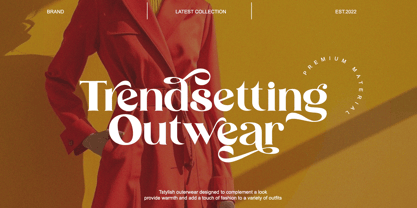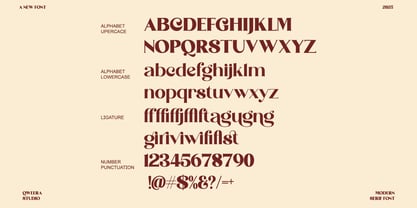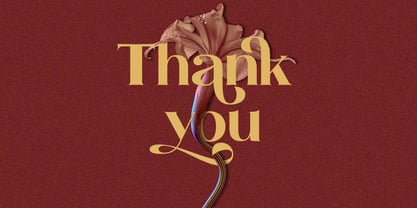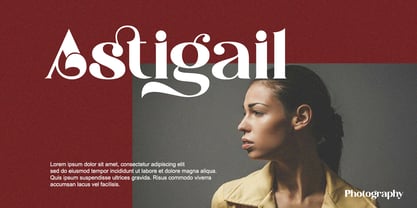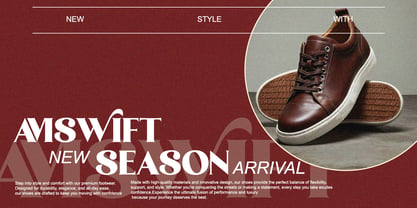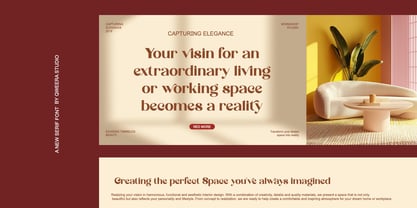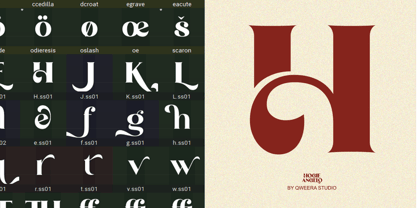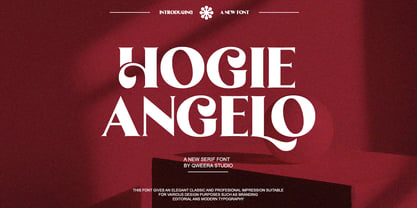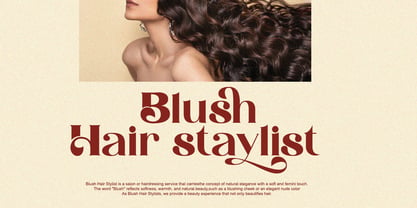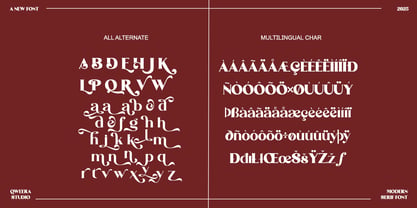
Hogie Angelo
by Qweera Studio
The Hogie Angelo Font Family was designed by Idhham Cholid Rikzano Yahya and published by Qweera Studio. Hogie Angelo contains 2 styles and family package options. More about this family
Hogie Angelo – Elegant Classic Serif Font for Timeless Designs
Hogie Angelo is more than just a font – it's a masterfully crafted classic serif typeface that exudes timeless elegance and sophistication. Featuring both regular and italic versions with exquisite alternates and ligatures, this font brings a touch of refined luxury to all your creative projects.
Where Timeless Elegance Meets Modern Versatility
Hogie Angelo combines traditional serif beauty with contemporary design flexibility. Its graceful letterforms and carefully designed alternates make it perfect for creating distinguished branding, luxury logos, premium packaging, and high-end editorial designs that stand the test of time.
Key Features
• Classic Serif Elegance – Perfect for luxury branding and sophisticated designs
• Regular & Italic Versions – For harmonious typographic compositions
• Exclusive Alternates & Ligatures – Customize your typography with elegant variations
• Premium Aesthetic – Ideal for high-end branding and packaging
• Comprehensive Language Support – Including extended Latin characters
Elevate Your Brand with Hogie Angelo Transform your projects with Hogie Angelo's timeless sophistication. Whether you're designing for luxury brands, premium publications, or elegant invitations, this font adds that distinguished touch of class that sets your work apart.